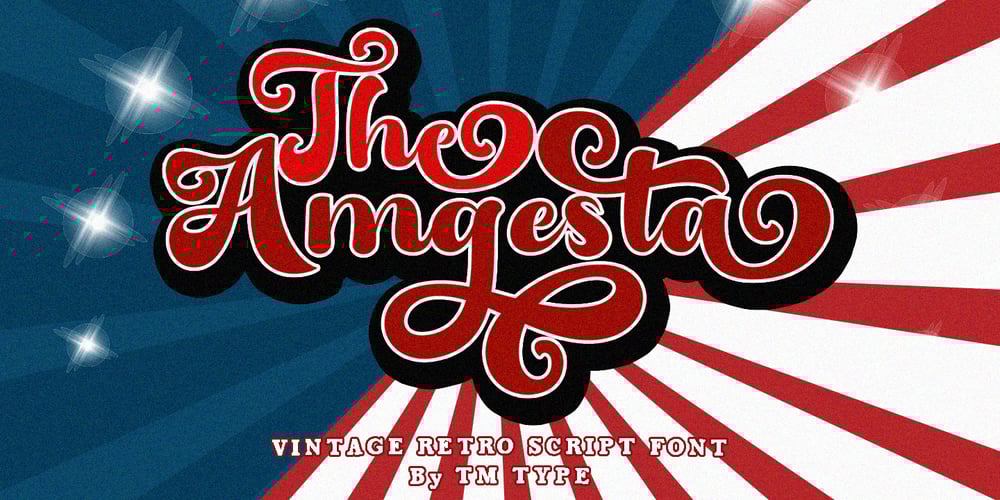
The Amgesta Font Family was designed by Teuku Bustami and published by TM Type. The Amgesta contains 1 styles and family package options. The Amgesta is a Vintage retro font inspired by retro typography and lettering in the 60s and 80s combined with a bold typography style.This font is perfect for vintage and retro designs, badges, logos, t-shirts, posters, branding, packaging, signage, book covers, and so much more! This font is PUA encoded, which means you can access all of the glyphs and swashes with ease!